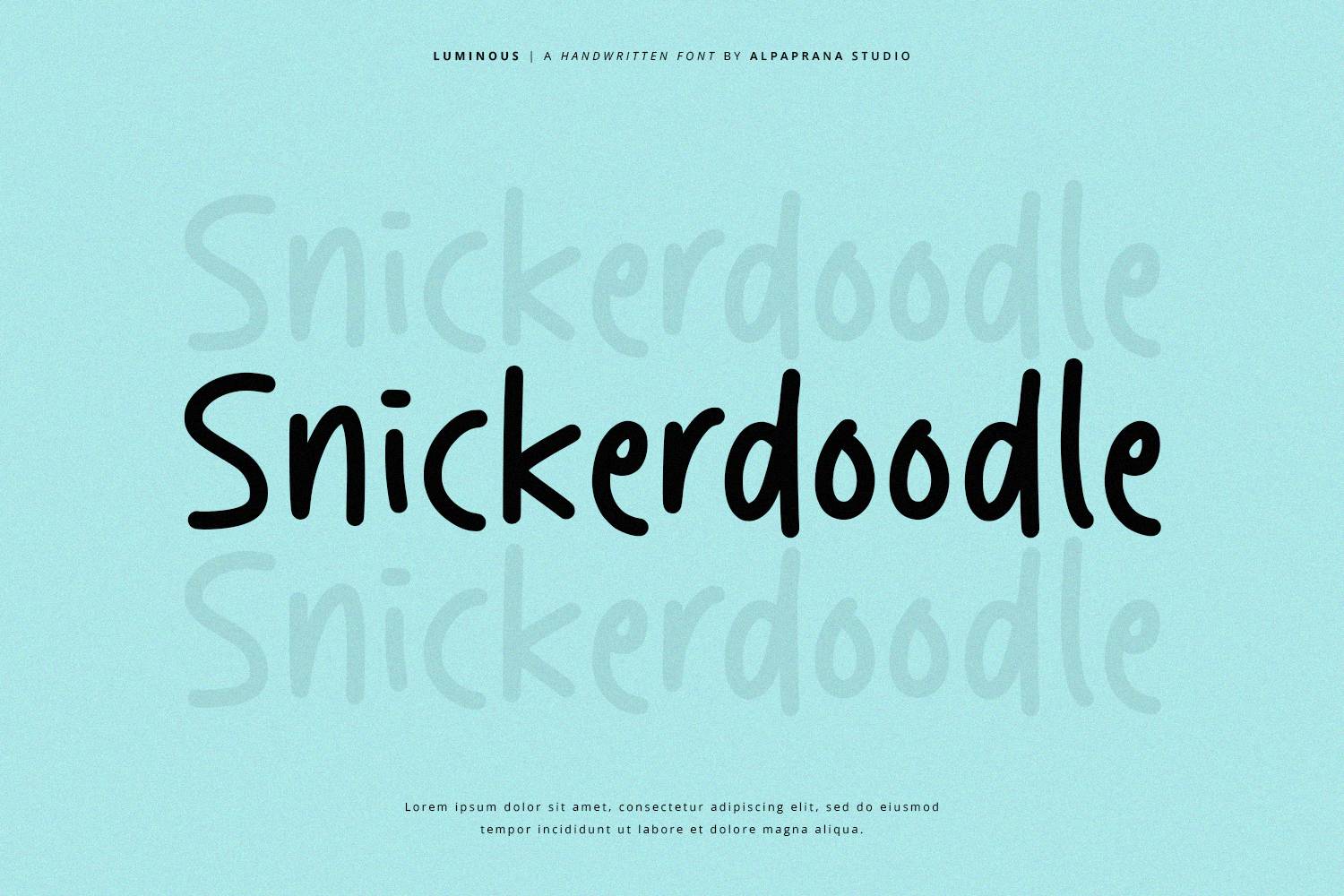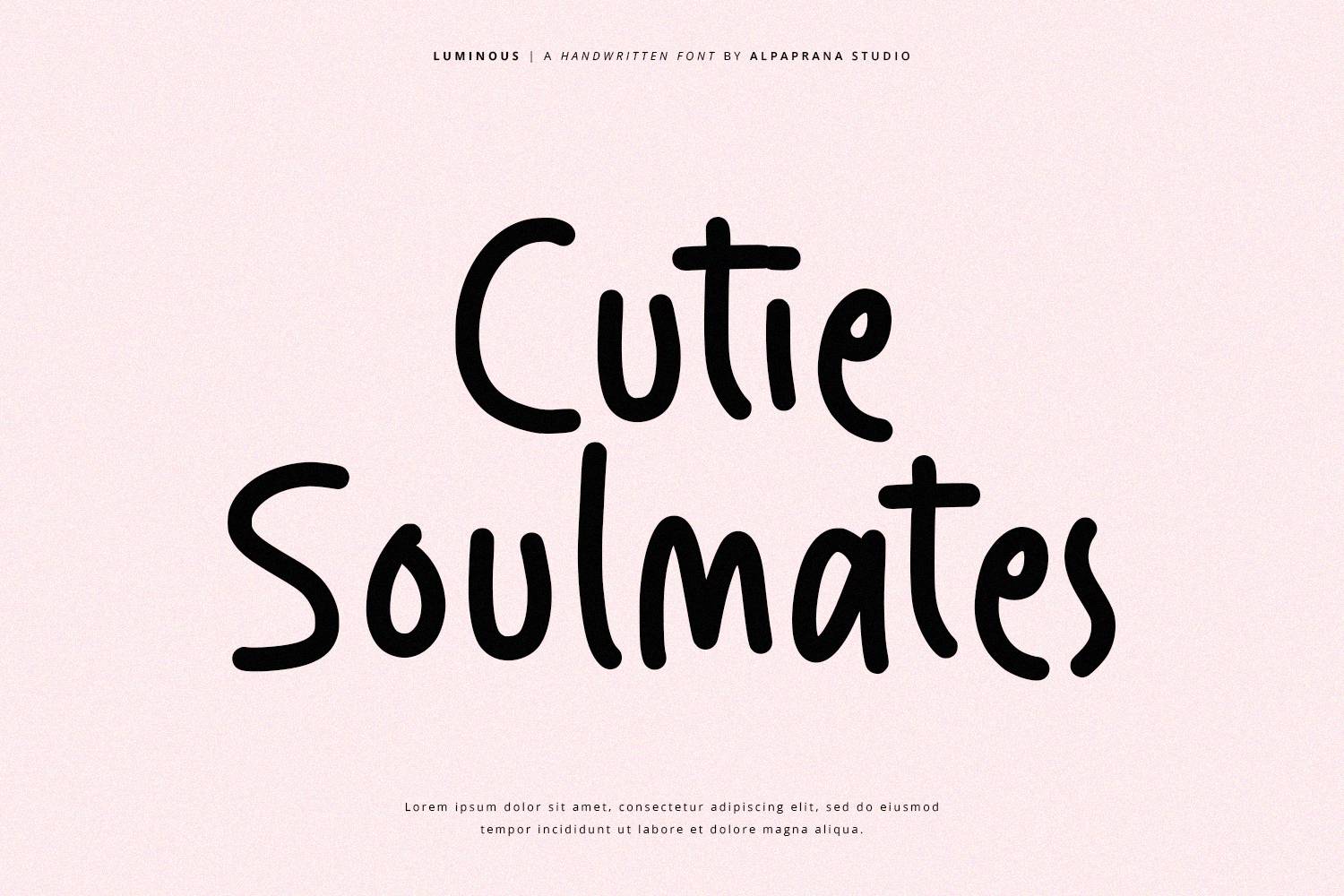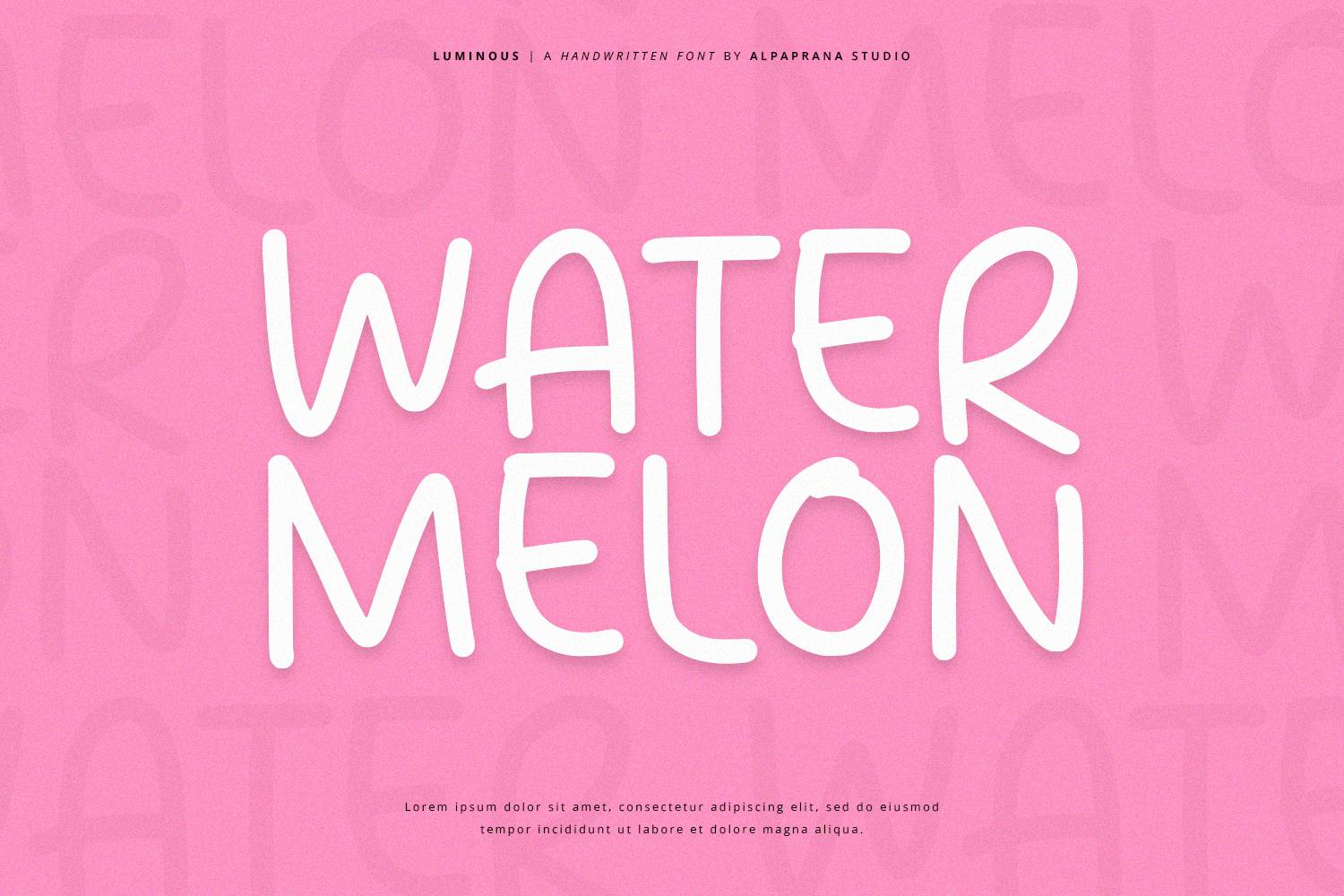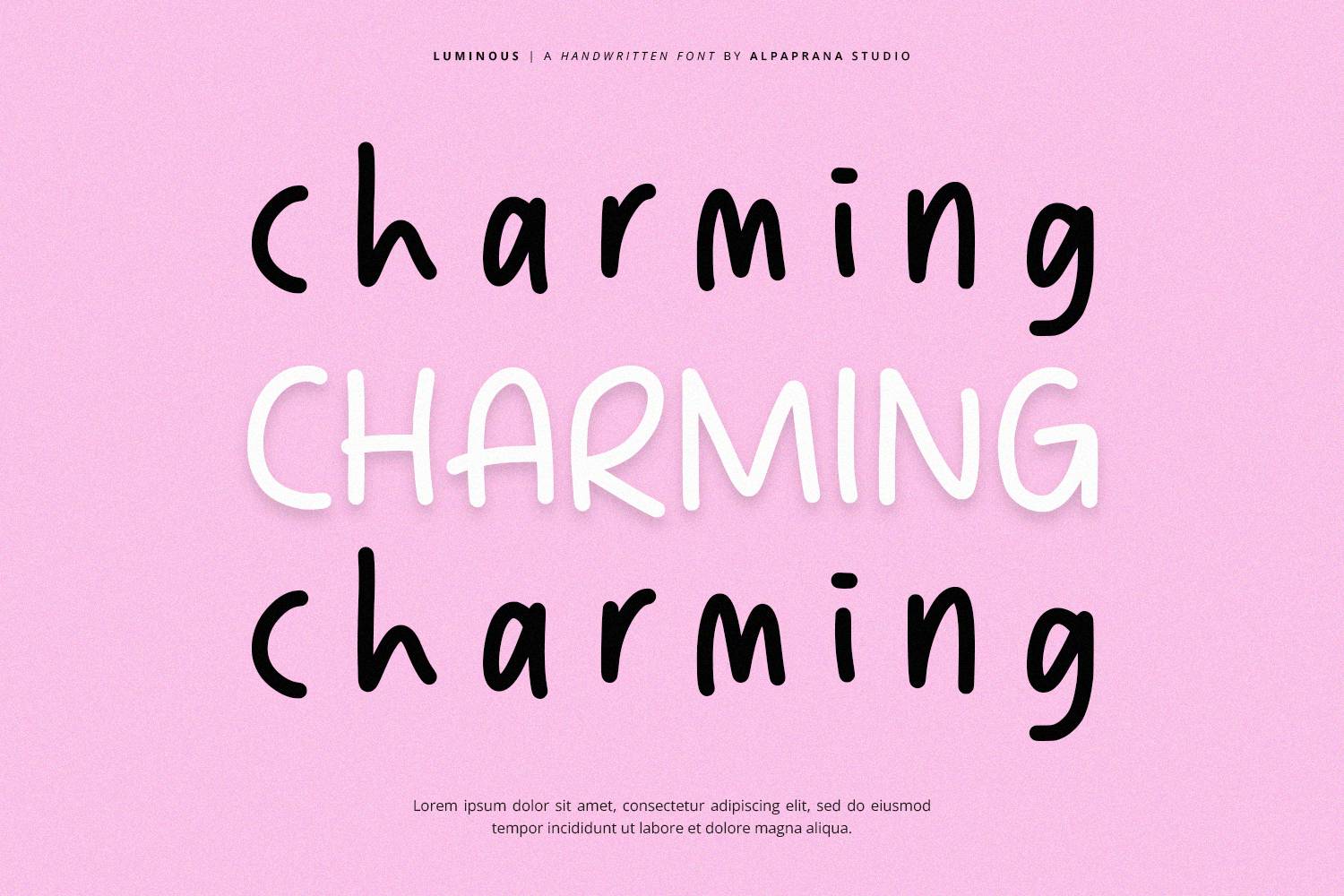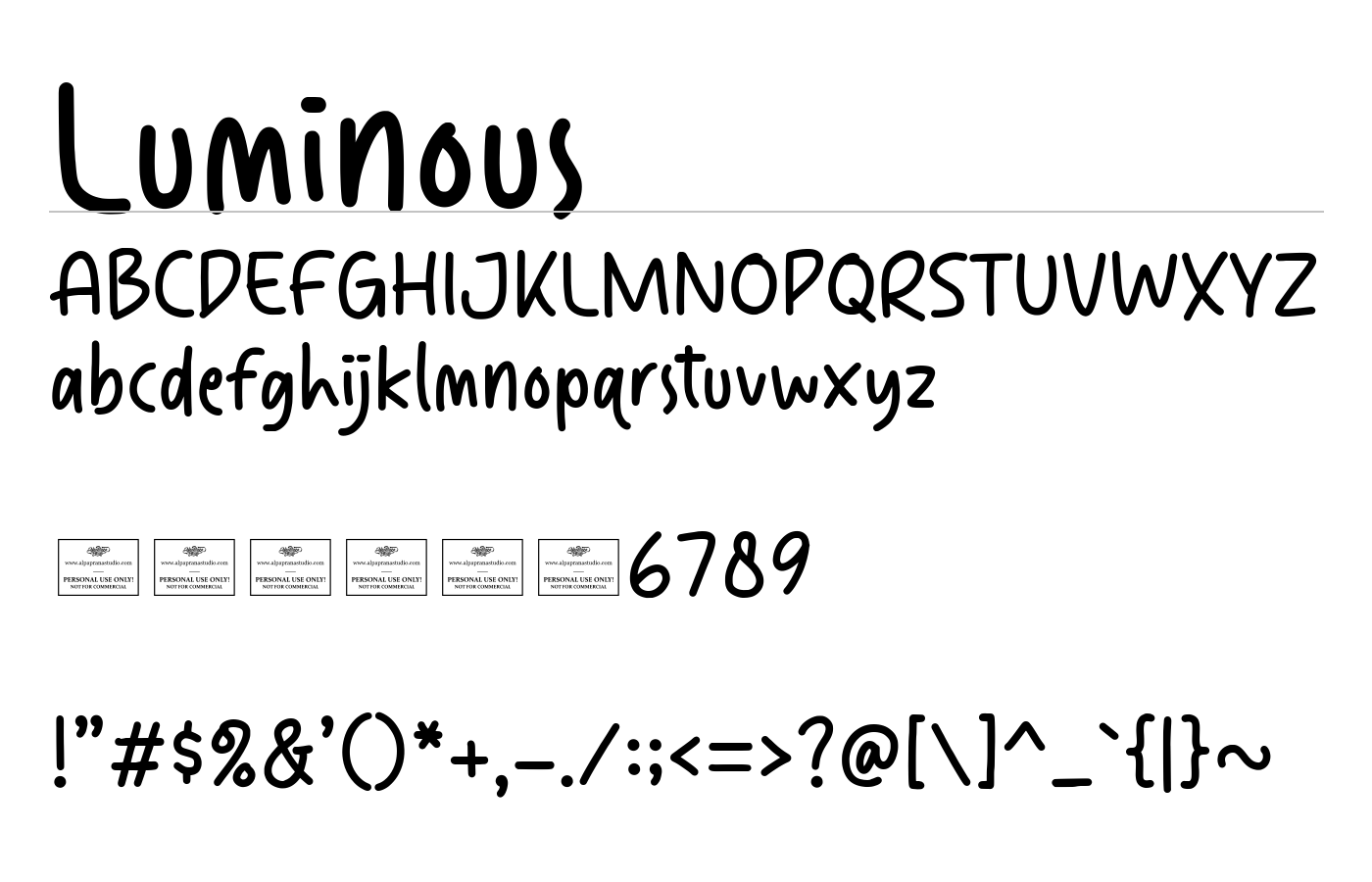
Luminous Font is a casual, handwritten-style sans serif with a friendly and approachable feel. Its rounded, slightly irregular letterforms and moderate x-height give it a personal, informal touch, making it ideal for playful designs, informal branding, and creative projects that seek a warm, human presence. This font works well for social media graphics, children's materials, and casual headlines where a relaxed and inviting tone is desired.
Luminous Font
About Luminous Font